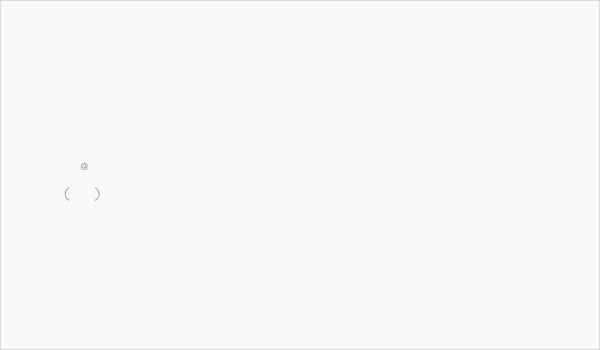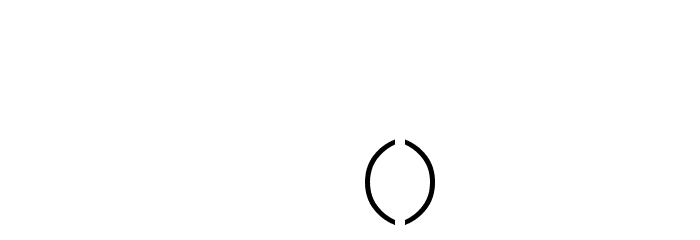
DEINI Small Font
DEINI Small Description
This font features a unique and artistic design, characterized by its circular and symmetrical form. It lacks traditional alphanumeric characters and instead presents a single, stylized symbol that resembles a circle with two small openings on opposite sides. The design is minimalistic yet intriguing, offering a modern and abstract aesthetic. Its simplicity and geometric nature make it stand out as a decorative element rather than a functional typeface for text.
| Overall Style | Modern, Abstract |
| Use Case | Logos, Decorative elements |
| Proposed Projects | Ideal for logo design, branding elements, or as a decorative icon in modern art projects. |